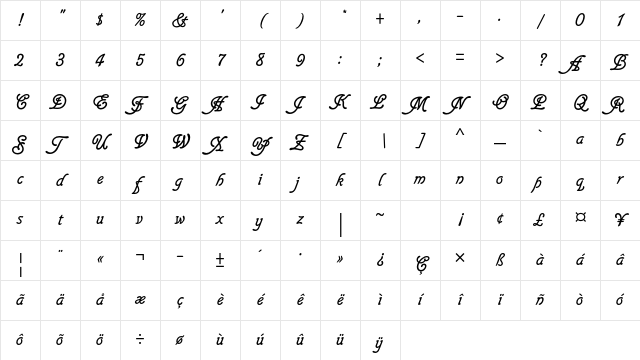
Glastonbury Std Regular
Designer: Alan Meeks
Design Context for Glastonbury Std
Glastonbury Std is a composed and adaptable typeface that performs quietly and consistently across a wide range of design contexts.